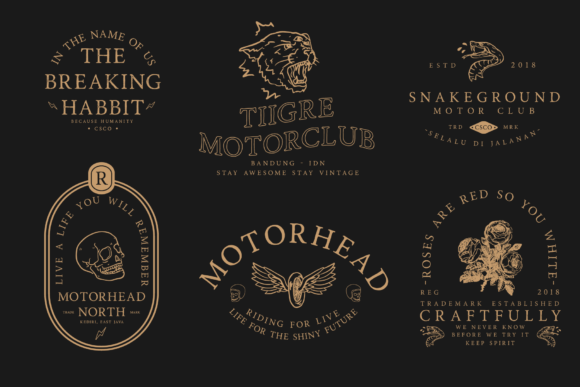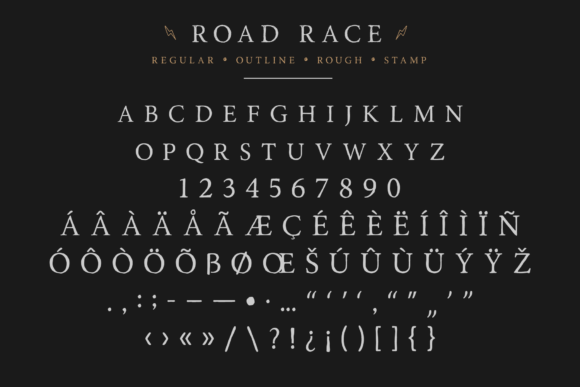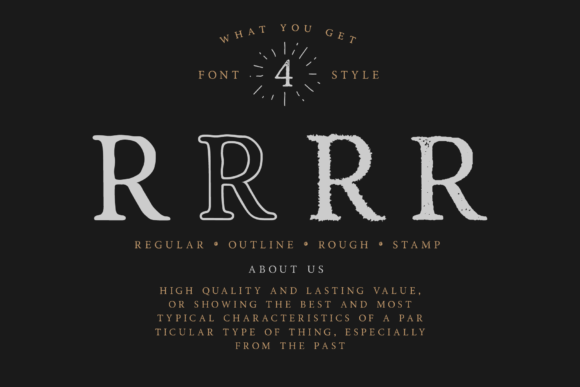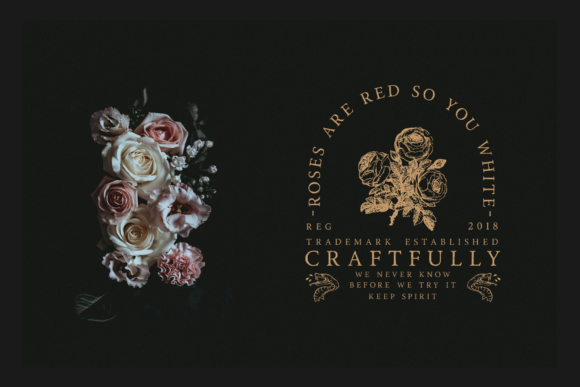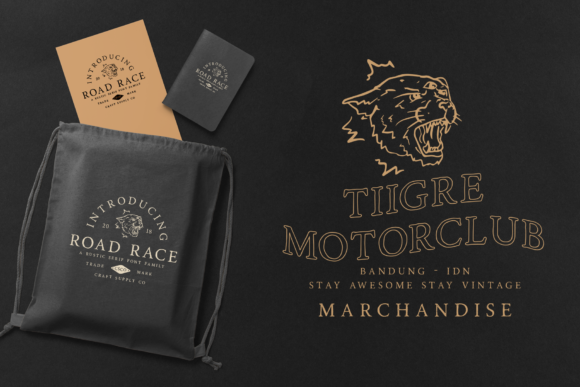
Introduction to Road Race Family Font
You’re sitting at your desk, staring at a blank canvas, trying to bring your creative project to life. The perfect font can make all the difference, but sometimes it feels like the perfect one is just out of reach. That’s where the Road Race Family Font comes in – a rustic serif font family that’s about to change the game for your design project.
With its high-quality, versatile design, the Road Race Family Font is a must-have for any designer. Whether you’re working on a free download project or a high-end design, this font family has got you covered. Its transparent background and four weights make it the perfect design resource for any creative project, from posters to brochures and beyond.
Key Features of Road Race Family Font
- High-quality design resource ideal for creative projects, such as posters, flyers, and advertisements.
- Includes a transparent background, allowing for easy integration with various design elements and backgrounds.
- Features a unique, bold, and modern design style, perfect for making a statement in your creative project.
- Part of a family of fonts, offering a range of styles and weights to choose from, making it a valuable design resource.
Honest Review: Road Race Family Font
I recently had the chance to work with the Road Race Family Font, and I must say it’s been a great addition to my design resource library. The font is perfect for any creative project that needs a high-quality, sporty vibe.
- ✨ Great for titles and headings due to its bold and eye-catching design
- ✨ Has a transparent background, allowing for easy customization and layering in design projects
- ⚠️ The font family is relatively small, with only a few styles available
- ⚠️ May not be suitable for projects that require a more elegant or sophisticated look
Overall, I’m really impressed with the Road Race Family Font. Its unique design and high quality make it a great addition to any designer’s toolkit. Whether you’re working on a sports-themed project or just need a bold font for your creative project, this font is definitely worth checking out.
The Road Race Family Font is ideal for a wide range of creative projects, including logos, posters, business cards, and more. Its high quality and versatility make it a valuable design resource for any creative project.